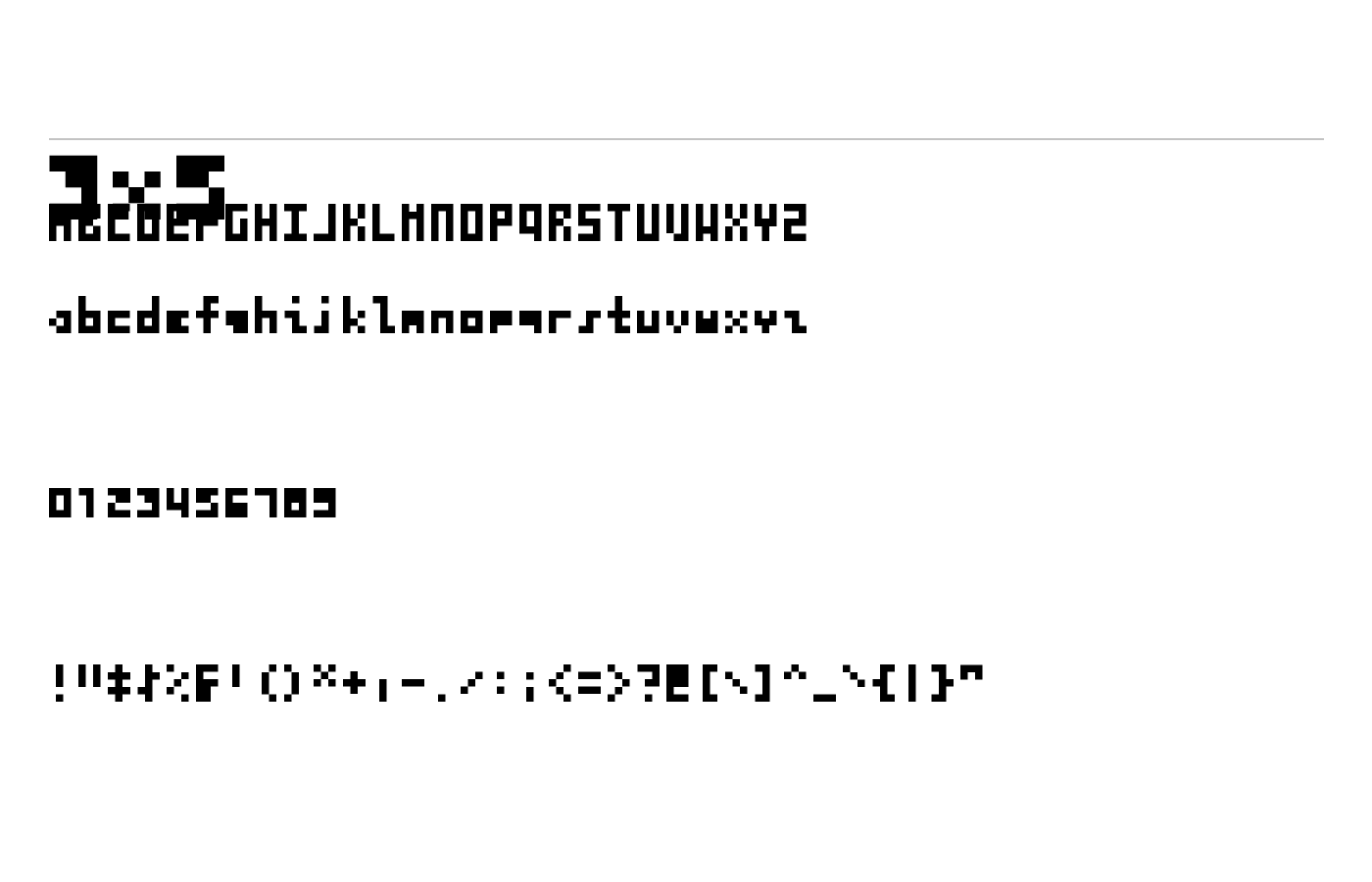
3x5 Font is a pixelated, monospaced typeface with a blocky, geometric structure that evokes a retro digital or video game aesthetic. Its compact and uniform design features minimal detail, making it ideal for low-resolution displays, pixel art, or designs that seek a nostalgic, tech-savvy vibe. This font works well for headlines, logos, and digital projects where clarity at small sizes and a strong, unmistakable character are essential.
3x5 Font
About 3x5 Font
| Font family | 3x5 Font |
| Designer | memesbruh03 |